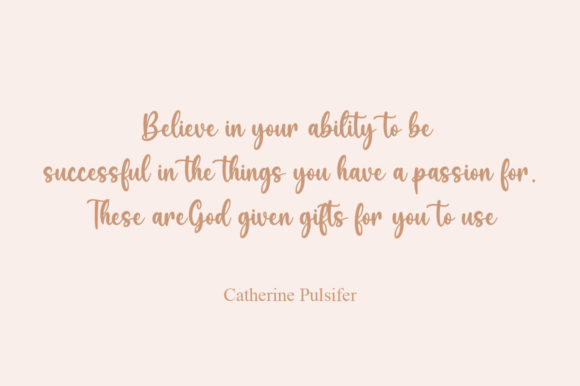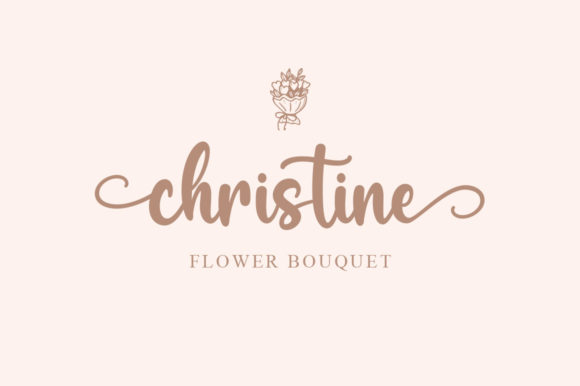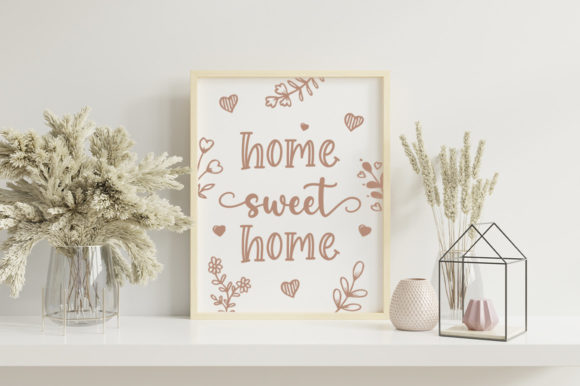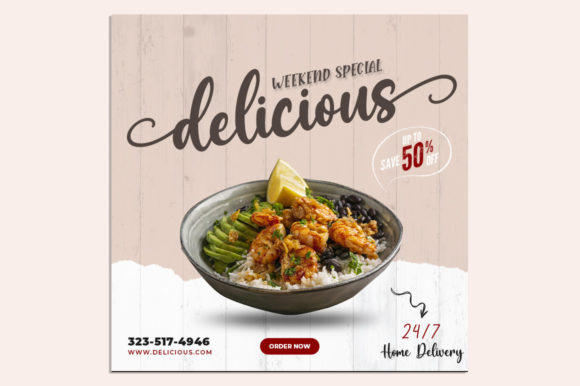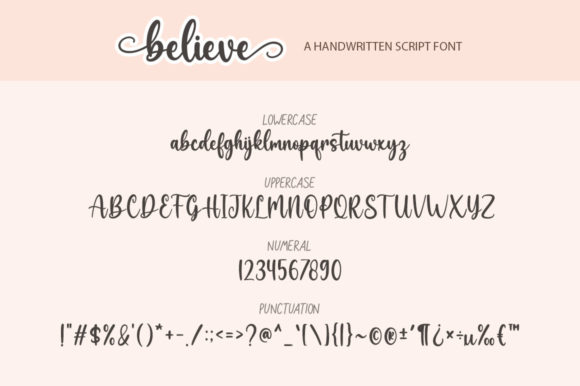
Introducing Believe Font: A Charming Script Font for Your Creative Projects
Are you a designer or crafter looking for a unique and playful font to add a touch of personality to your creative projects? Look no further than Believe Font, a lovely script font that is sure to capture your heart. With its charming and whimsical characters that seem to dance along the baseline, Believe Font is the perfect choice for a wide range of design applications, from handmade crafts to digital marketing materials.
What Makes Believe Font So Special?
Believe Font is a standout script font that boasts a range of features that make it a joy to use. Here are just a few of the things that set it apart:
- Charming, Playful Characters: Believe Font features characters that are full of personality and whimsy. Each letter is carefully crafted to create a sense of movement and energy, making it perfect for designs that need a touch of playfulness.
- PUA Encoding: Believe Font is PUA (Private Use Area) encoded, which means that you can access all glyphs and swashes with ease. This makes it simple to add flourishes and embellishments to your designs, giving them a professional and polished finish.
- Ease of Use: Despite its many features, Believe Font is incredibly easy to use. Whether you’re a seasoned designer or a crafting newbie, you’ll be able to get started with Believe Font right away.
Believe Font is a versatile font that is perfect for a wide range of design applications. Here are just a few ideas to get you started:
- Handmade Crafts: Add a touch of personality to your handmade crafts, such as cards, gift tags, and scrapbooking pages, with Believe Font.
- Digital Marketing Materials: Use Believe Font to add a playful touch to your digital marketing materials, such as social media graphics, blog posts, and email newsletters.
- Branding and Packaging: Create a unique and memorable brand identity with Believe Font, perfect for packaging, labels, and business cards.
Tips for Using Believe Font
Here are a few tips for getting the most out of Believe Font:
- Experiment with Swashes: Believe Font’s PUA encoding makes it easy to add swashes and flourishes to your designs. Experiment with different combinations to find the perfect look for your project.
- Pair with Other Fonts: Believe Font pairs beautifully with other fonts, so don’t be afraid to experiment with different combinations. Try pairing it with a bold sans-serif font for a striking contrast.
- Use for Headlines and Titles: Believe Font is perfect for headlines and titles, where its playful and whimsical characters can really shine.
In conclusion, Believe Font is a charming and versatile script font that is perfect for designers and crafters looking to add a touch of personality to their creative projects. With its PUA encoding, charming characters, and ease of use, Believe Font is a must-have for anyone looking to create beautiful and professional designs. So why wait? Download Believe Font today and start creating your own unique and eye-catching designs!